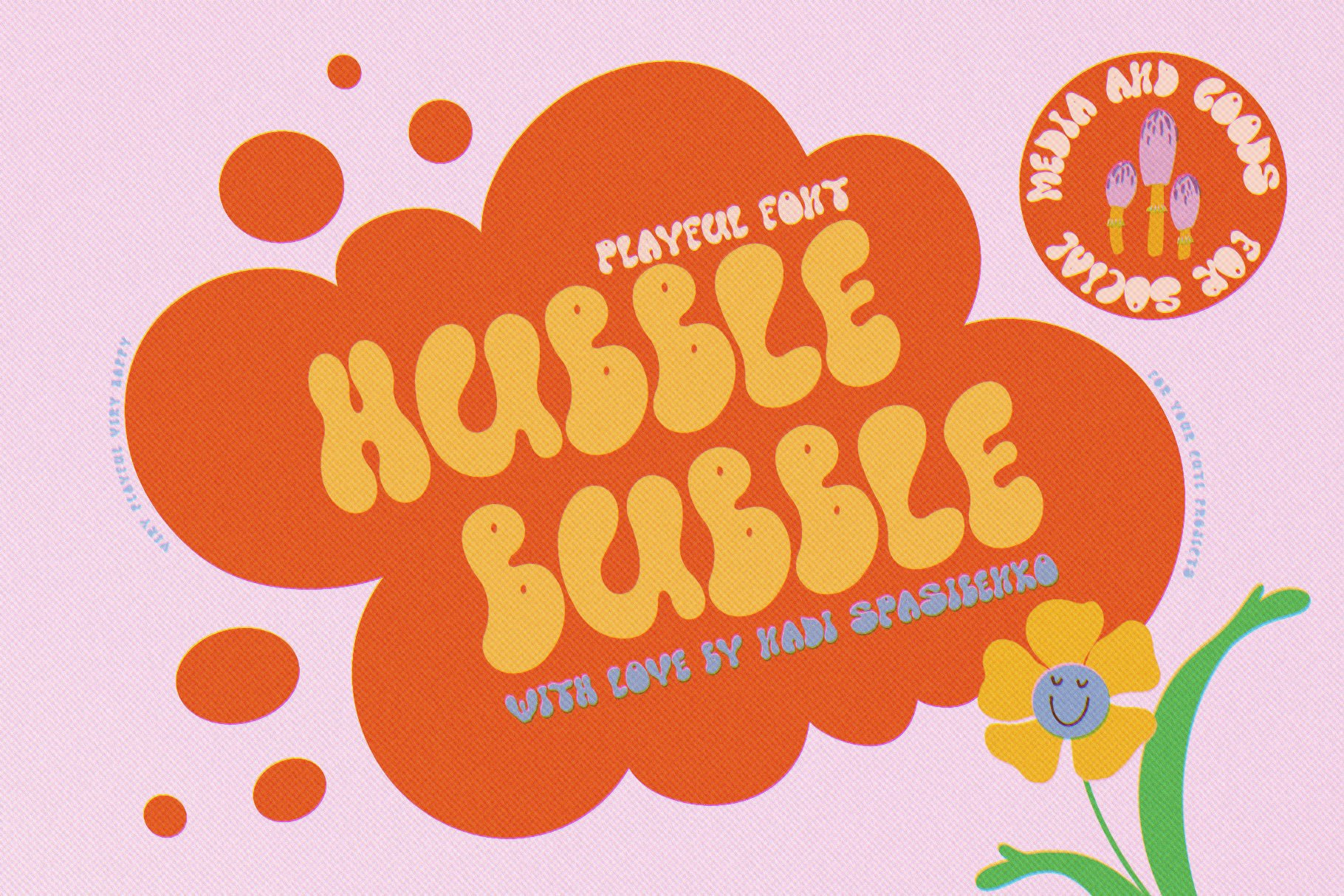
Hubble Bubble Font
- New Playful and Fun Hubble Bubble Font for social media, quotes, clothing and many other projects. You can use the font in retro projects6 to create a hippie and carefree atmosphere.